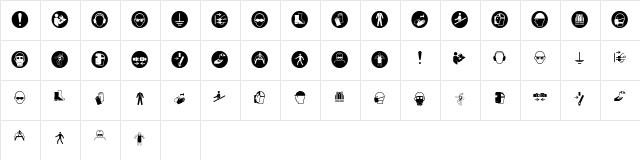
FontsVectorIso7010Mandatory Regular Font Preview
FontsVectorIso7010Mandatory Regular
FontsVectorIso7010Mandatory Regular Font Details
| Foundry | Vector.id. 2020 |
| Designer | Vector.id. 2020 |
Design Context for FontsVectorIso7010Mandatory Typeface
FontsVectorIso7010Mandatory takes a measured approach to typography — its balanced proportions and neutral character make it a reliable workhorse for both digital and print work.